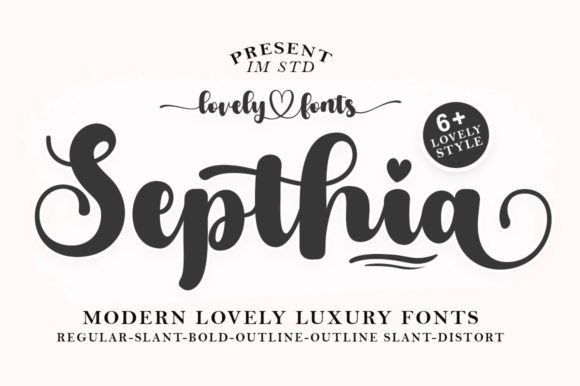
Dive into the world of romance and grace with Septhia, a mesmerizing script font family that will ignite your creative spark. This exquisite typeface embodies the essence of elegance and sophistication, seamlessly weaving beauty and functionality into a captivating design.
Step into a realm where your words dance and twirl, carried by the enchanting curves and delicate strokes of Septhia. Crafted with meticulous care and attention to detail, each character exudes a charm that will leave you breathless. From wedding invitations that whisper sweet nothings to branding projects that demand attention, Septhia is your perfect companion.
With Septhia by your side, you'll effortlessly transform ordinary designs into extraordinary masterpieces. Its seamless flow and alluring personality will captivate your audience, leaving them spellbound by your creations. Whether you're a seasoned designer seeking a touch of magic or a creative enthusiast yearning to make a statement, Septhia is your secret weapon.
Septhia's versatility knows no bounds. Its elegant curves lend themselves perfectly to wedding stationery, adding a timeless touch to invitations, save-the-dates, and menus. Its playful nature shines in branding projects, creating logos and packaging that exude warmth and charm. And for those seeking a touch of whimsy, Septhia's playful side is perfect for creating social media graphics, greeting cards, and posters that are sure to delight.
Immerse yourself in a world where creativity flourishes and beauty reigns supreme. Let Septhia be your muse, guiding you to design masterpieces that will leave a lasting impression. Experience the allure of a font that speaks to the heart and elevates your designs to new heights.